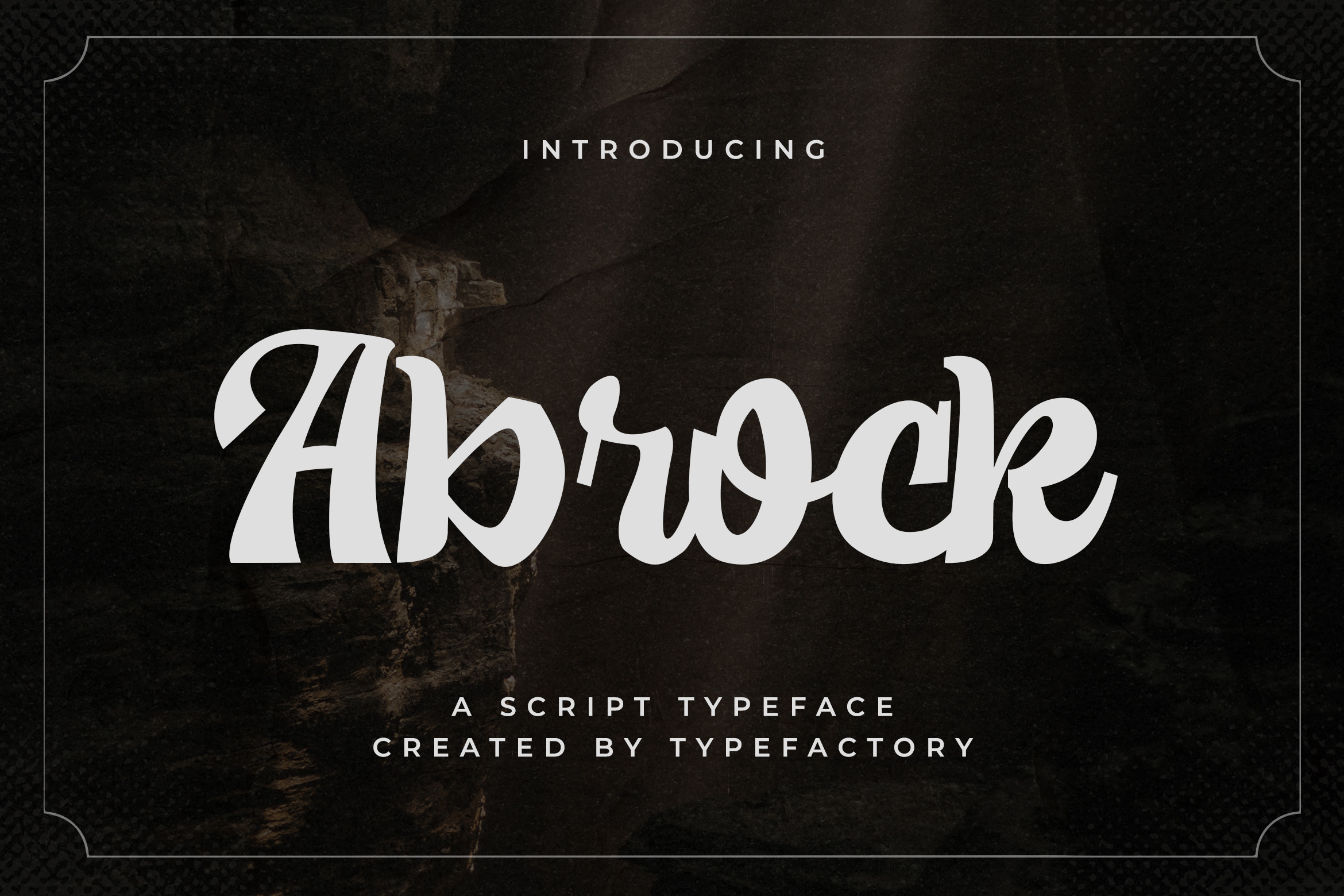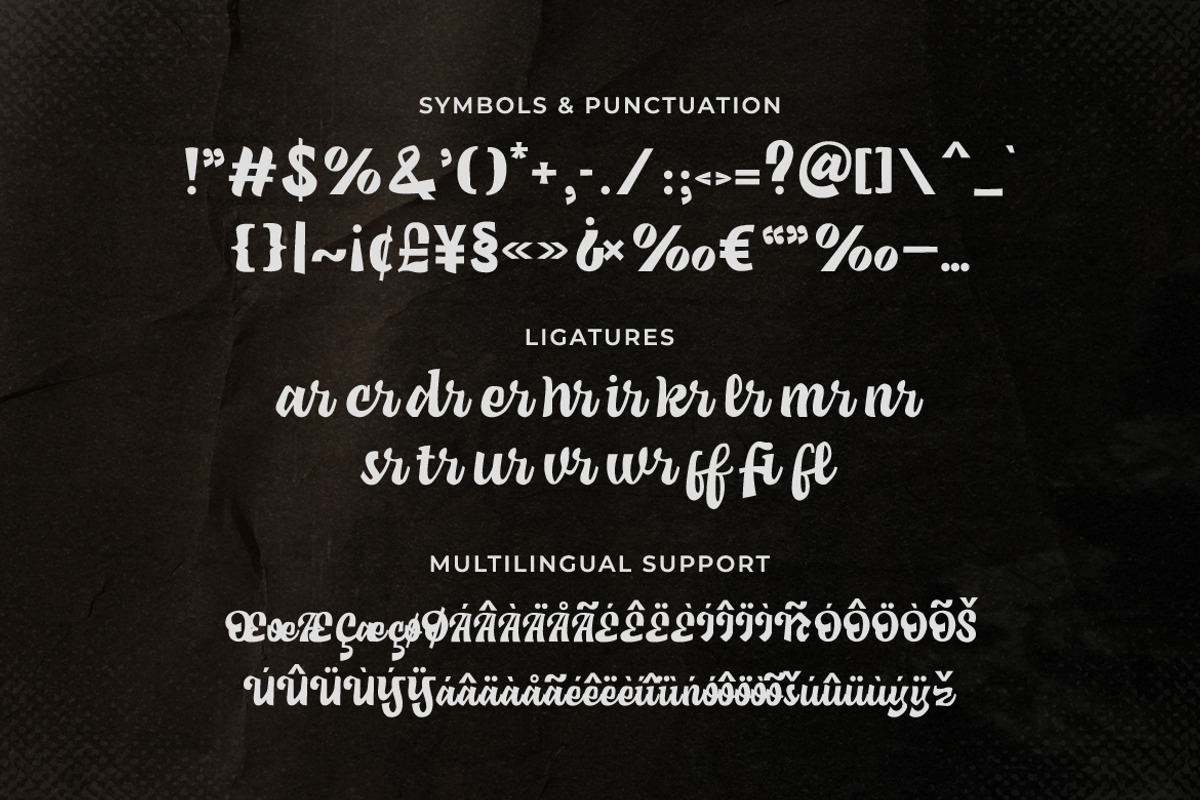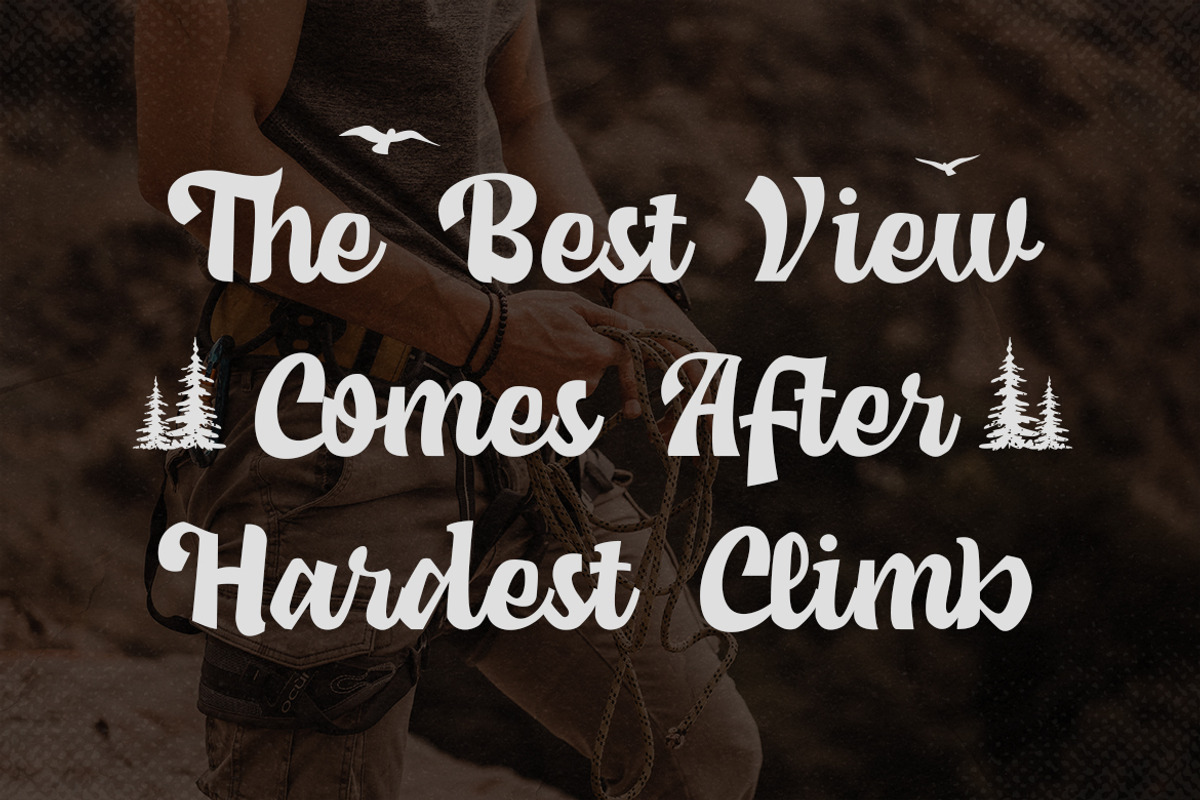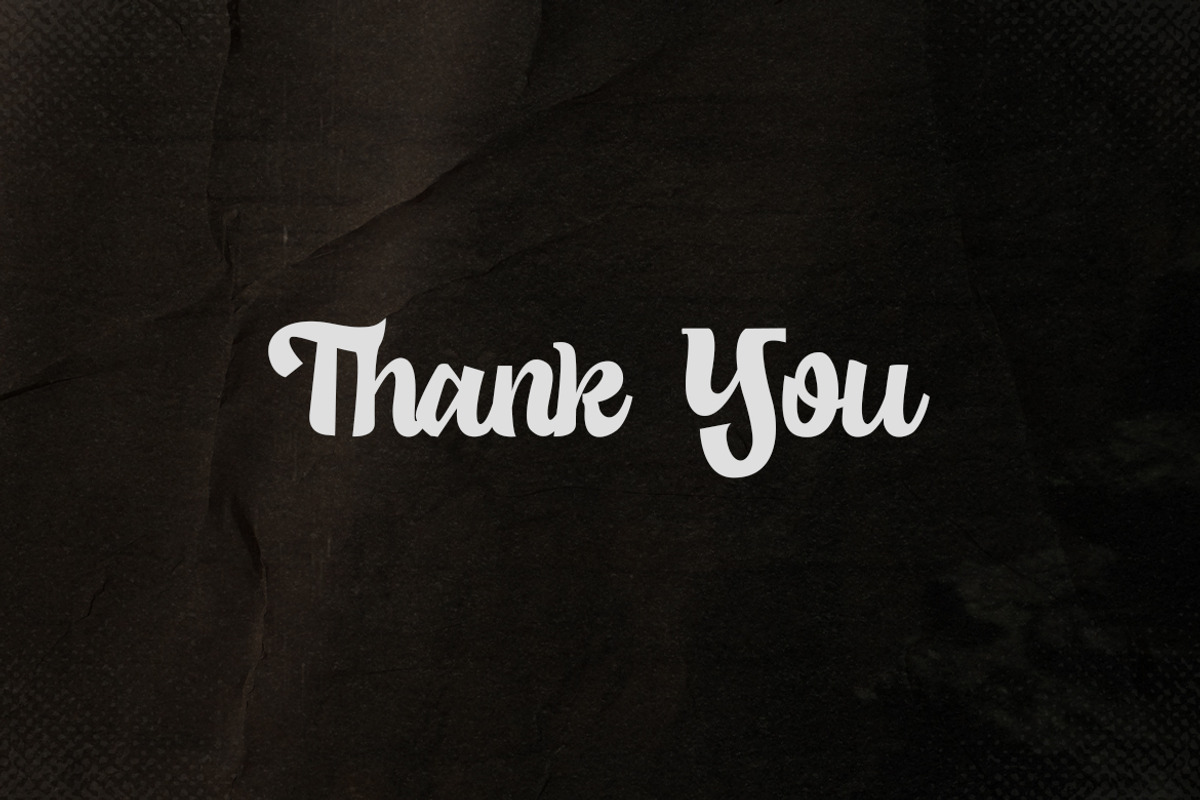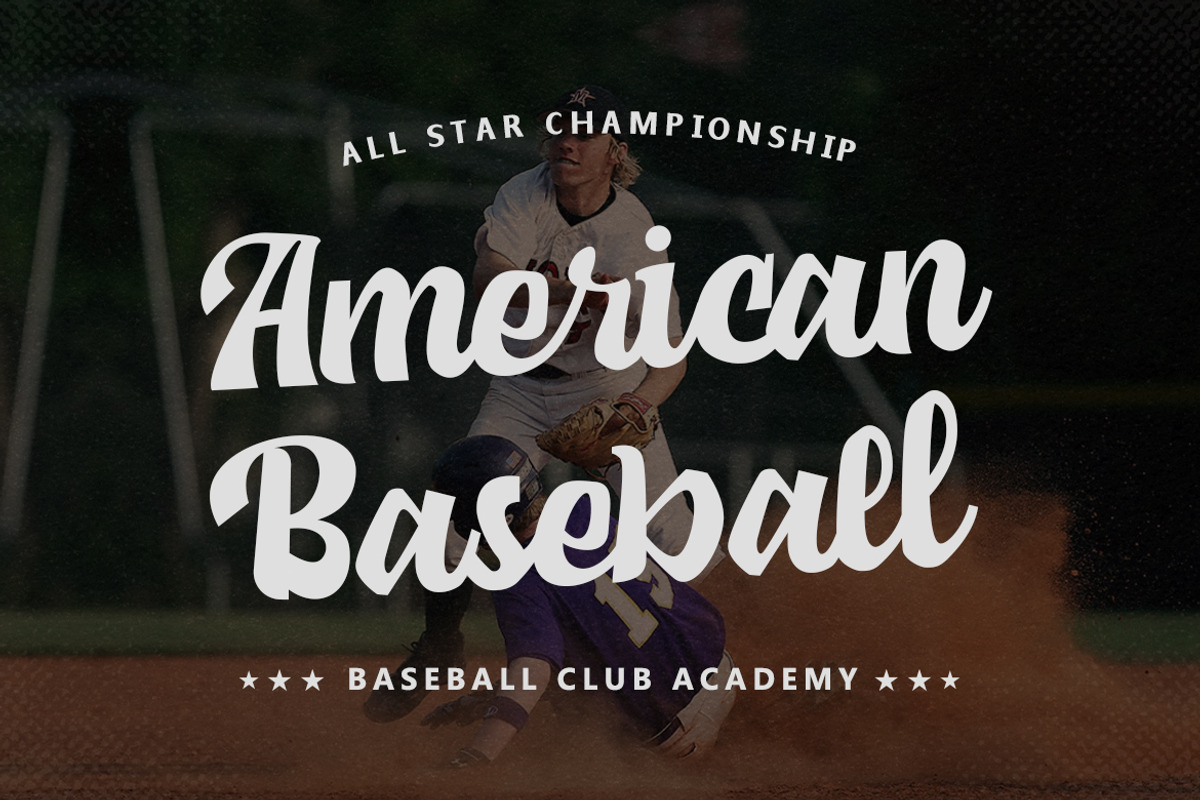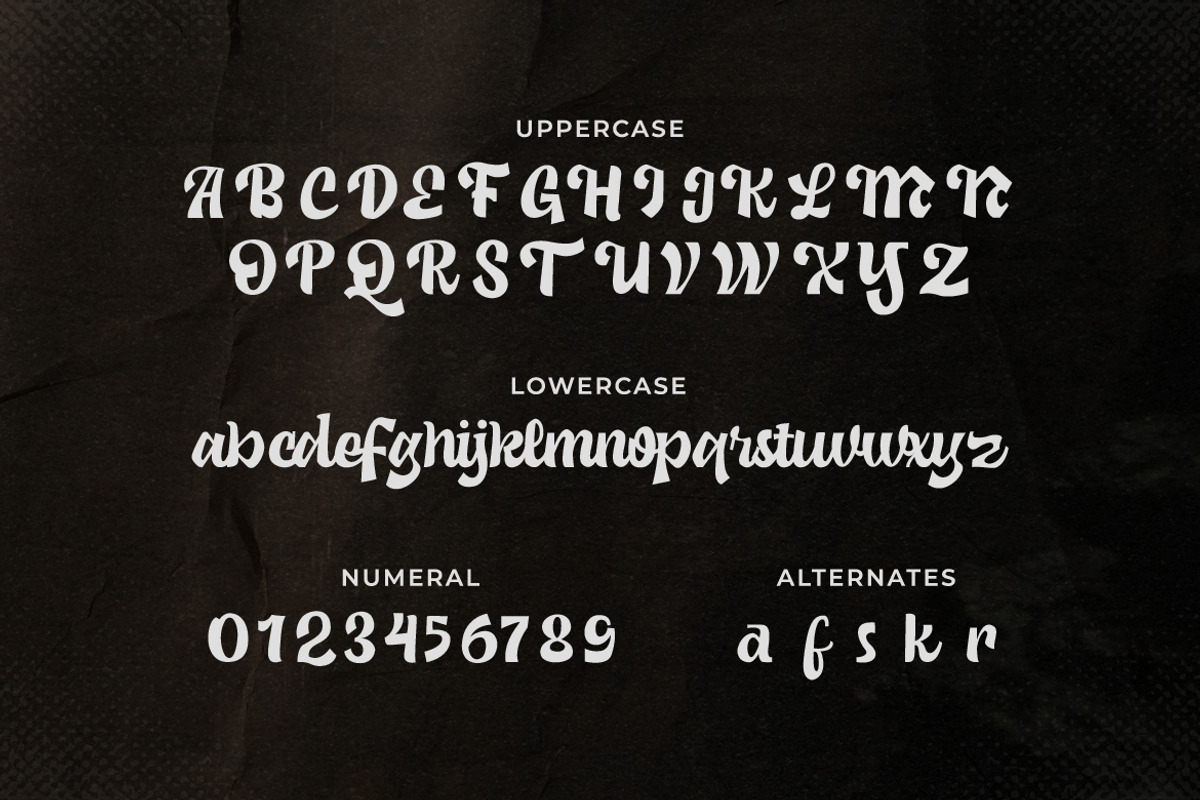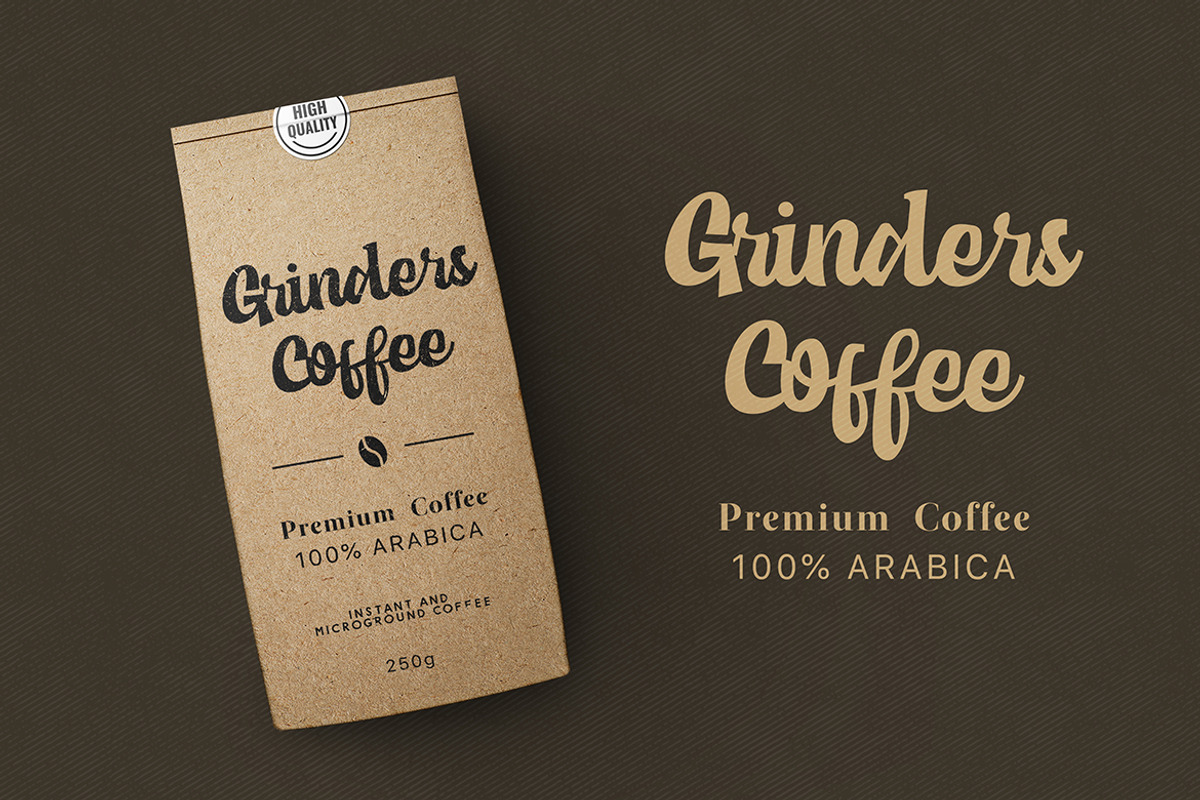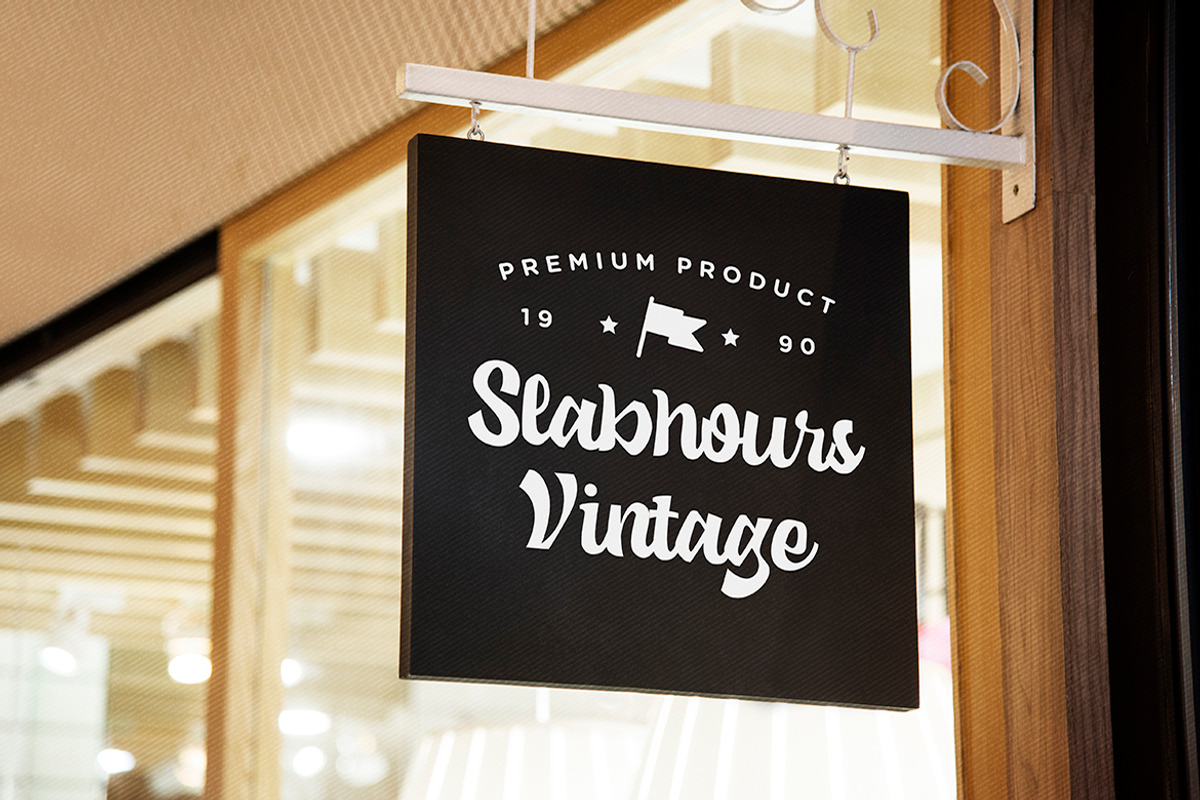
Abrock - Script Typeface
Abrock is a vintage bold script handwritten font. It can be used for various purposes such as logos, headings, coffee shop, vintage restaurant, letterhead, signage, labels, news, posters, badges and so much more.
- Symbols & Punctuation
- Numeral